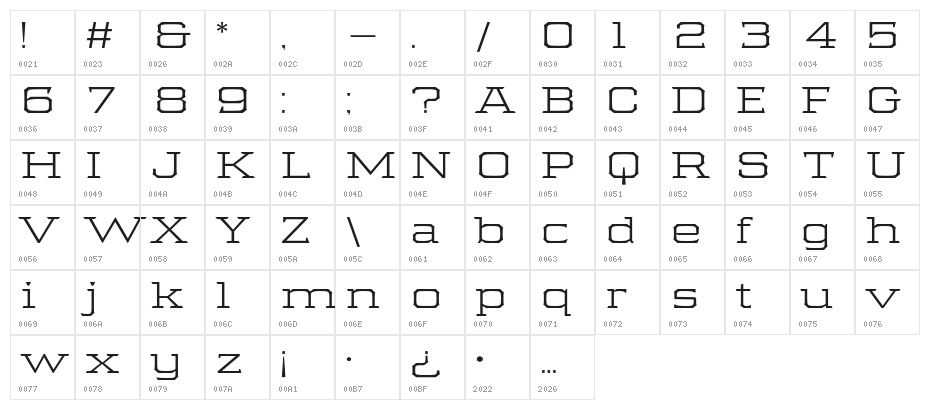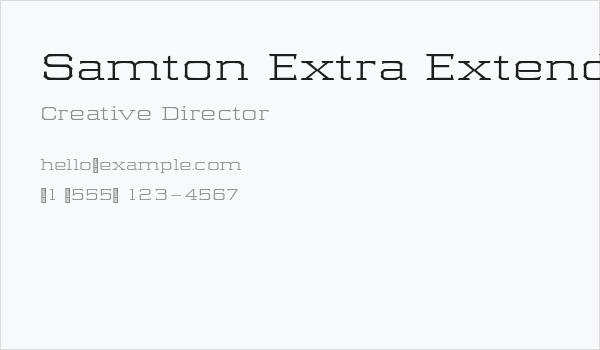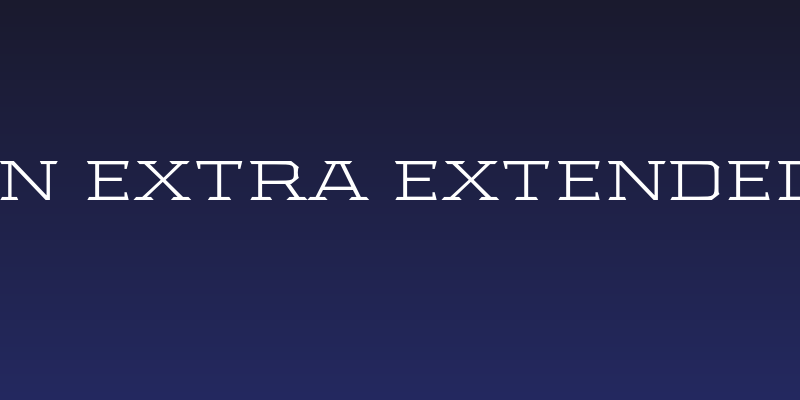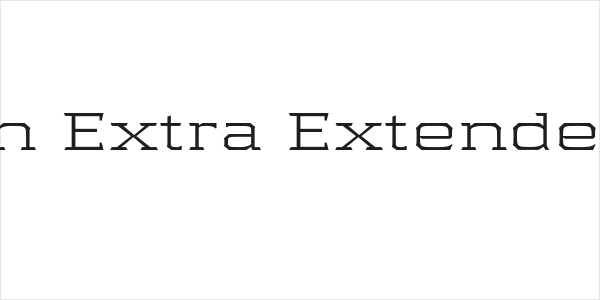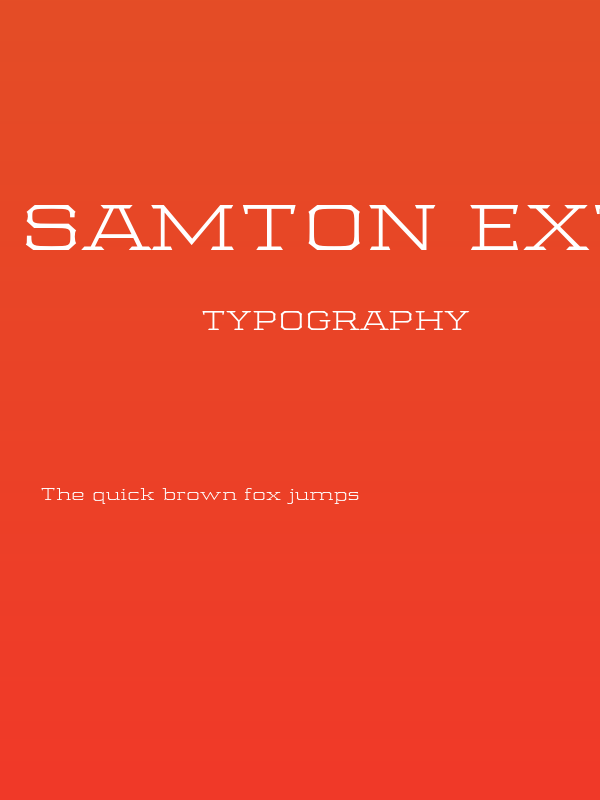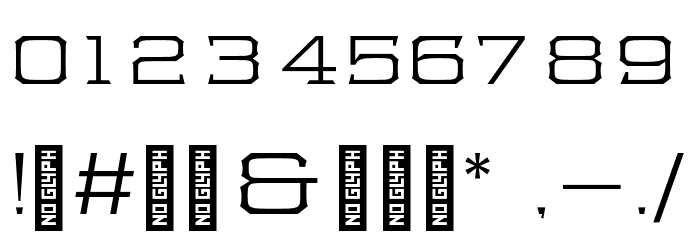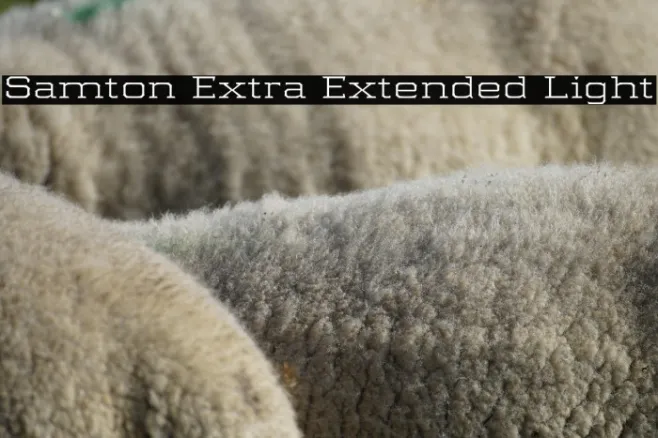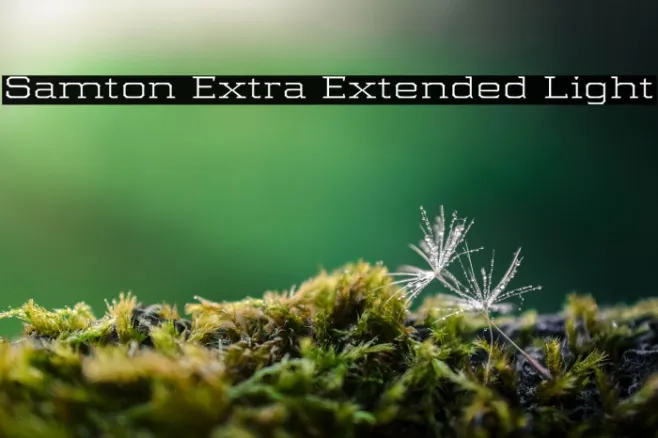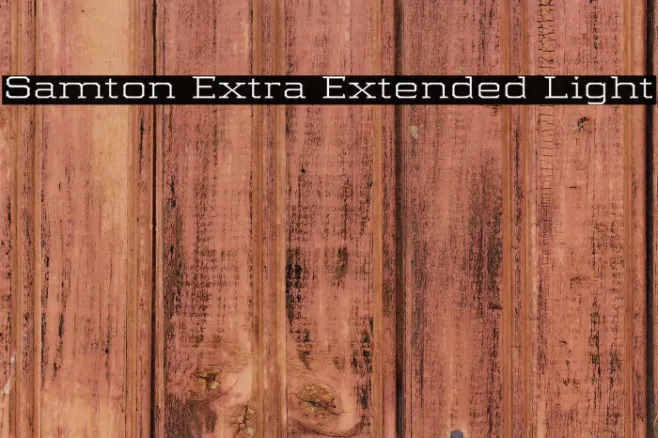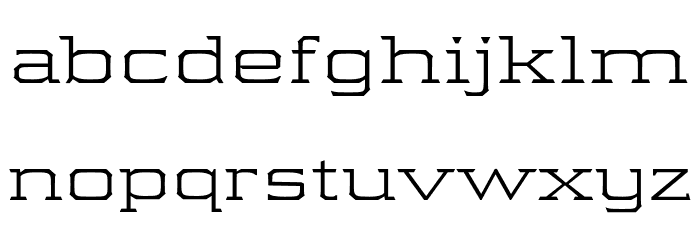
Samton Extra Extended Light Font
Samton Extra Extended Light Description
This font features an extra-extended and light design, characterized by its elongated and airy letterforms. The uppercase and lowercase letters maintain a consistent width, providing a balanced and harmonious appearance. The font exhibits a geometric structure with clean, straight lines and minimal curves, giving it a modern and technical feel. The numerals are distinct and clear, ensuring readability. However, some special characters are missing, which might limit its versatility. Overall, the font's extended width and light weight make it suitable for projects that require a contemporary and spacious aesthetic.